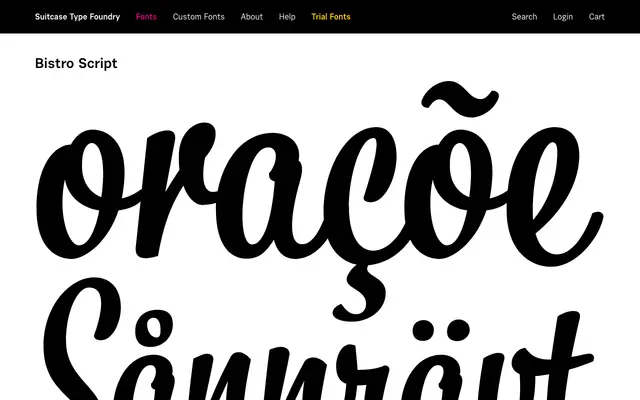
Bistro Script
A casual script from Suitcase Type Foundry designed for food and hospitality branding contexts.
The name and styling point to a brush or pen-influenced script suited to menu design, café branding and similar hospitality applications. Its casual character makes it readable at display sizes while retaining a handcrafted feel. Little detailed information is available from the page, but the positioning is clear from the name alone.
Named and styled as a script typeface, the 'Script' suffix and 'Bistro' branding suggest a casual, handwritten or brush-influenced script suited to food and hospitality contexts.